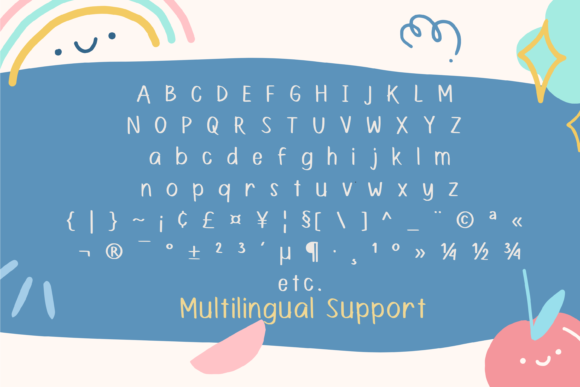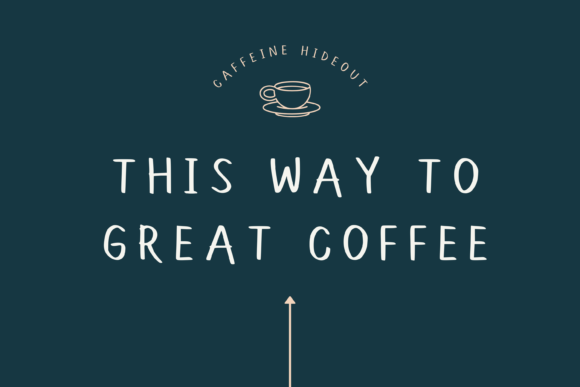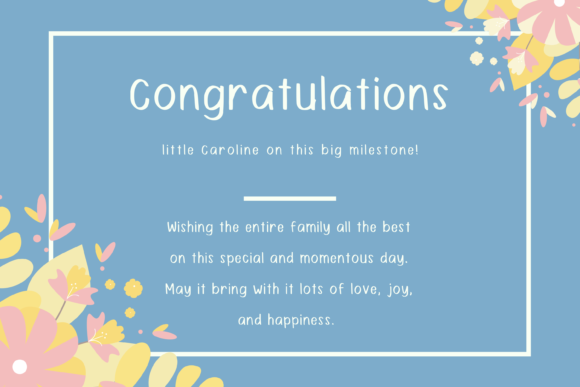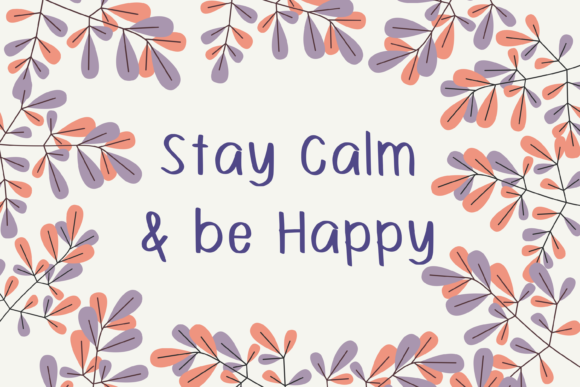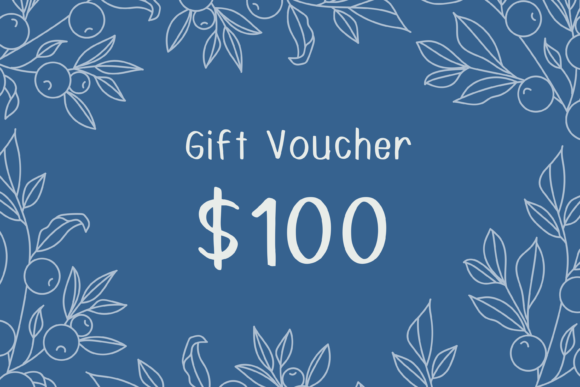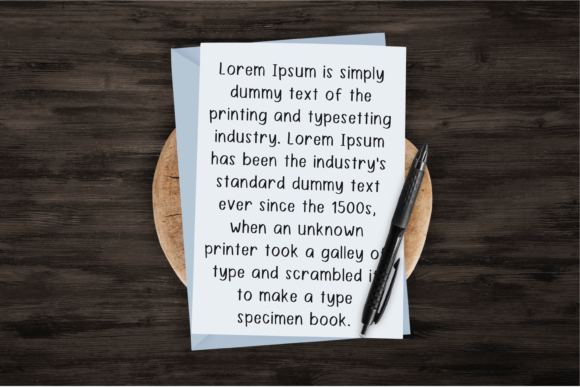
Introducing Alviena Font: The Sweet and Friendly Display Font for Your Creative Projects
Are you a designer or crafter looking for a font that can add a touch of personality to your creative projects? Look no further than Alviena Font! This sweet and friendly display font is perfect for a wide range of designs, from branding and advertising to crafting and DIY projects. With its natural and unique style, Alviena Font is sure to make your projects stand out from the crowd.
The Unique Style of Alviena Font
Alviena Font boasts a one-of-a-kind design that is both elegant and approachable. Its natural and unique style makes it incredibly fitting to a large pool of designs, allowing you to use it for a variety of creative projects. Whether you’re designing a logo, creating a social media graphic, or crafting a handmade card, Alviena Font is the perfect choice.
One of the things that sets Alviena Font apart from other display fonts is its friendly and approachable feel. This font is designed to make your projects feel warm and inviting, making it perfect for brands and designers who want to create a sense of connection with their audience.
The Versatility of Alviena Font
The only limit to using Alviena Font is your imagination! This versatile font can be used for a wide range of creative projects, including:
- Branding and advertising: Use Alviena Font to create eye-catching logos, business cards, and brochures that showcase your brand’s personality.
- Social media graphics: Add a touch of personality to your social media posts with Alviena Font. Create engaging graphics that will help you stand out from the crowd.
- Crafting and DIY projects: Use Alviena Font to add a personal touch to your handmade crafts, such as cards, scrapbook pages, and journal entries.
- Web design: Add a touch of elegance to your website with Alviena Font. Use it for headings, titles, and other display text to create a visually appealing design.
Why Choose Alviena Font?
So why choose Alviena Font for your creative projects? Here are just a few reasons:
- Unique and eye-catching design: Alviena Font is a one-of-a-kind display font that will make your projects stand out from the crowd.
- Versatile: Use Alviena Font for a wide range of creative projects, from branding and advertising to crafting and DIY projects.
- Easy to read: Despite its unique design, Alviena Font is easy to read and understand, making it perfect for use in a variety of contexts.
- High-quality: Alviena Font is a high-quality font that is designed to look great in any context.
Tips for Using Alviena Font
Here are a few tips for using Alviena Font in your creative projects:
- Use it sparingly: Alviena Font is a display font, so it’s best to use it sparingly to add emphasis and personality to your projects.
- Pair it with other fonts: Alviena Font looks great when paired with other fonts. Try pairing it with a clean sans-serif font for a bold and modern look.
- Experiment with colors: Alviena Font looks great in a variety of colors. Experiment with different colors to find the one that works best for your project.
Alviena Font is a sweet and friendly display font that is perfect for designers and crafters who want to add a touch of personality to their creative projects. With its natural and unique style, Alviena Font is incredibly versatile and can be used for a wide range of designs. So why wait? Download Alviena Font today and start creating beautiful, eye-catching projects that showcase your brand’s personality!